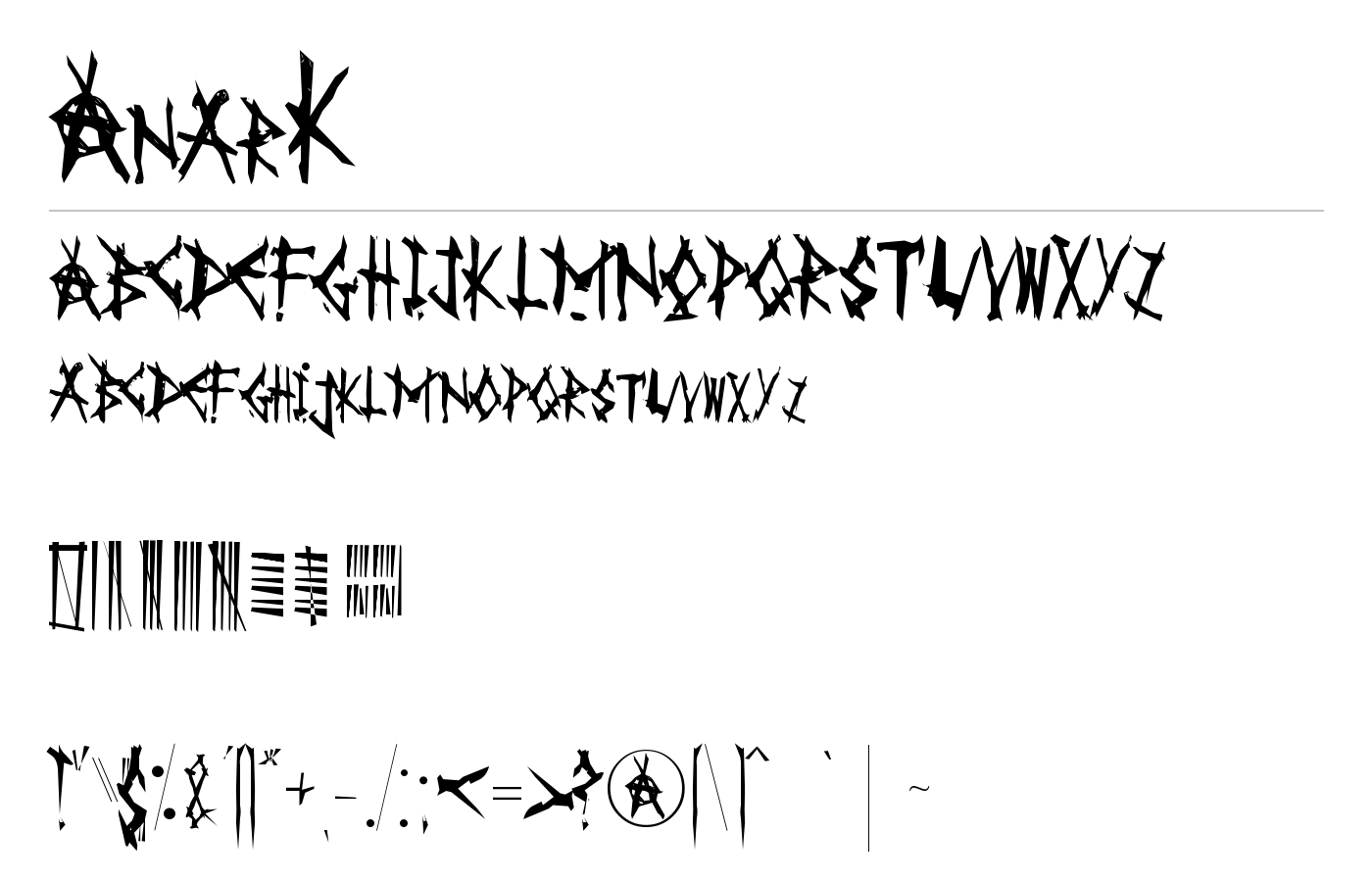
AnarK is a highly stylized, sans serif display font with sharp, jagged edges and an irregular, distressed appearance that gives it a rebellious, edgy personality. Its narrow width, bold weight, and chaotic letterforms make it ideal for attention-grabbing headlines, logos, or designs aiming for a punk, grunge, or alternative vibe. This font works best in creative, urban branding or posters where a strong, unconventional statement is desired.
AnarK Font
About AnarK Font